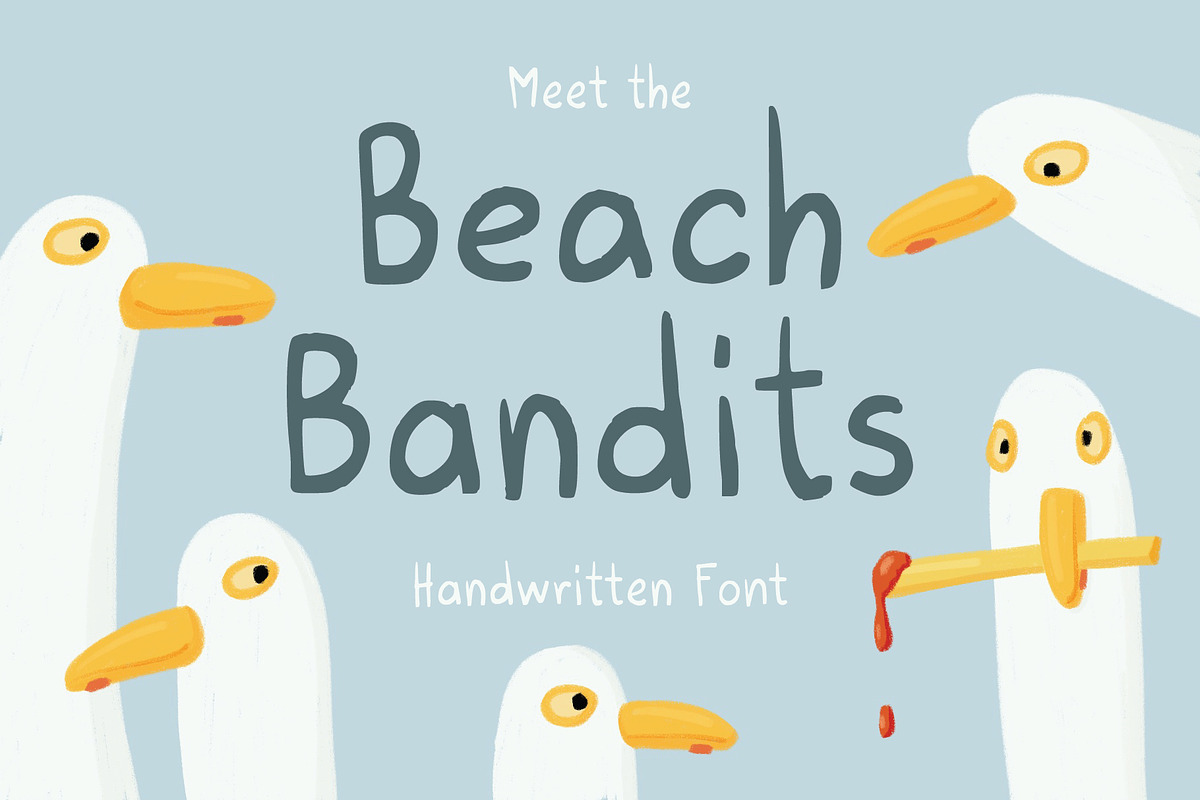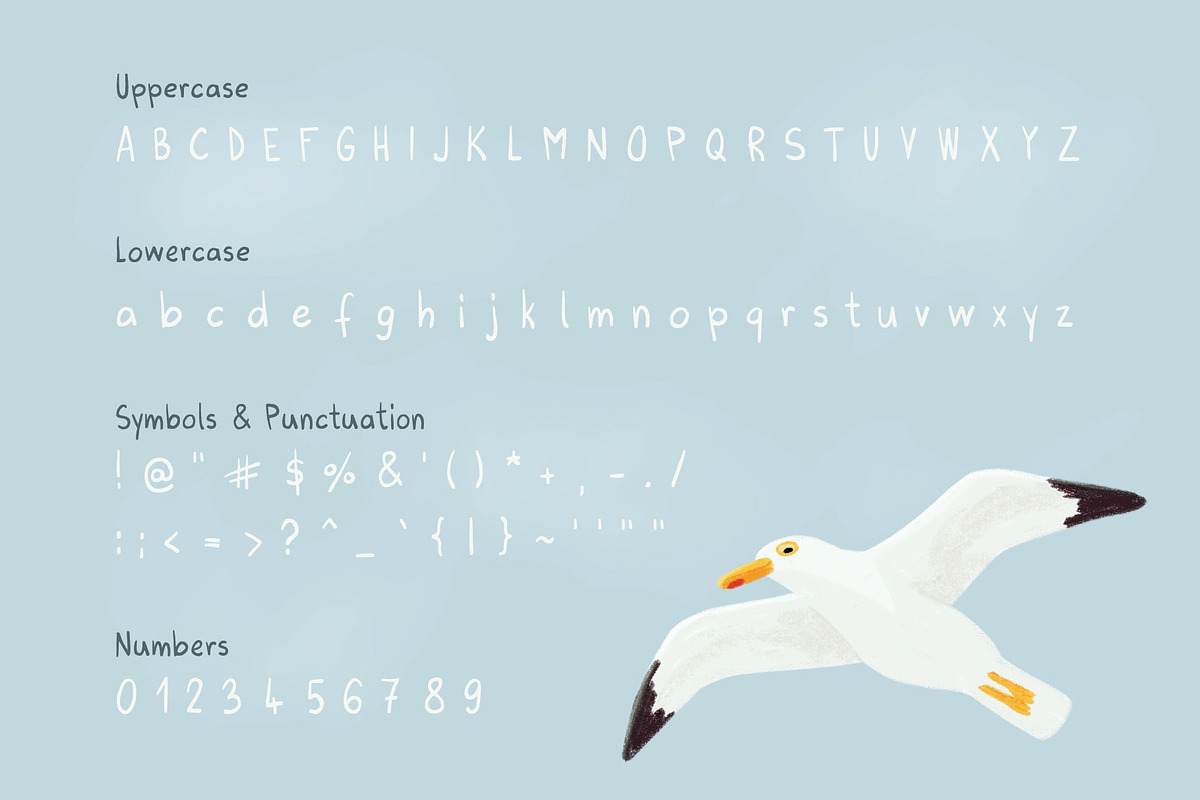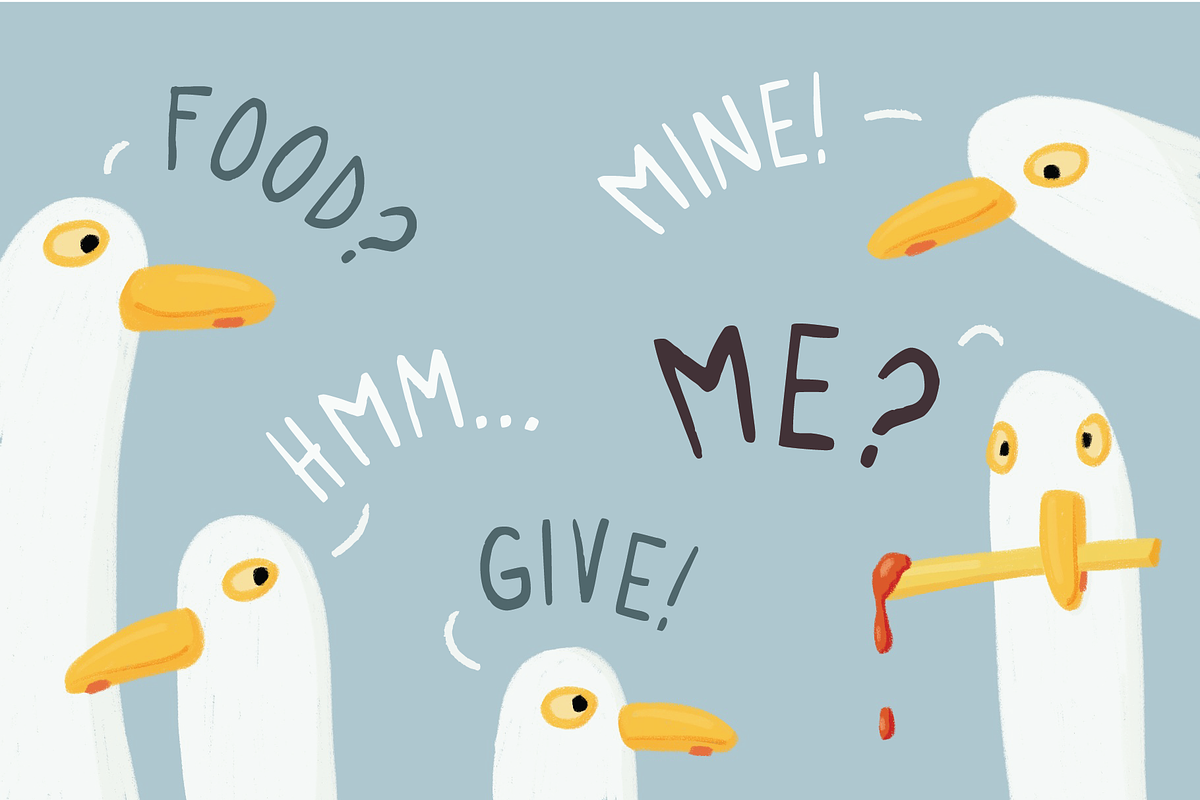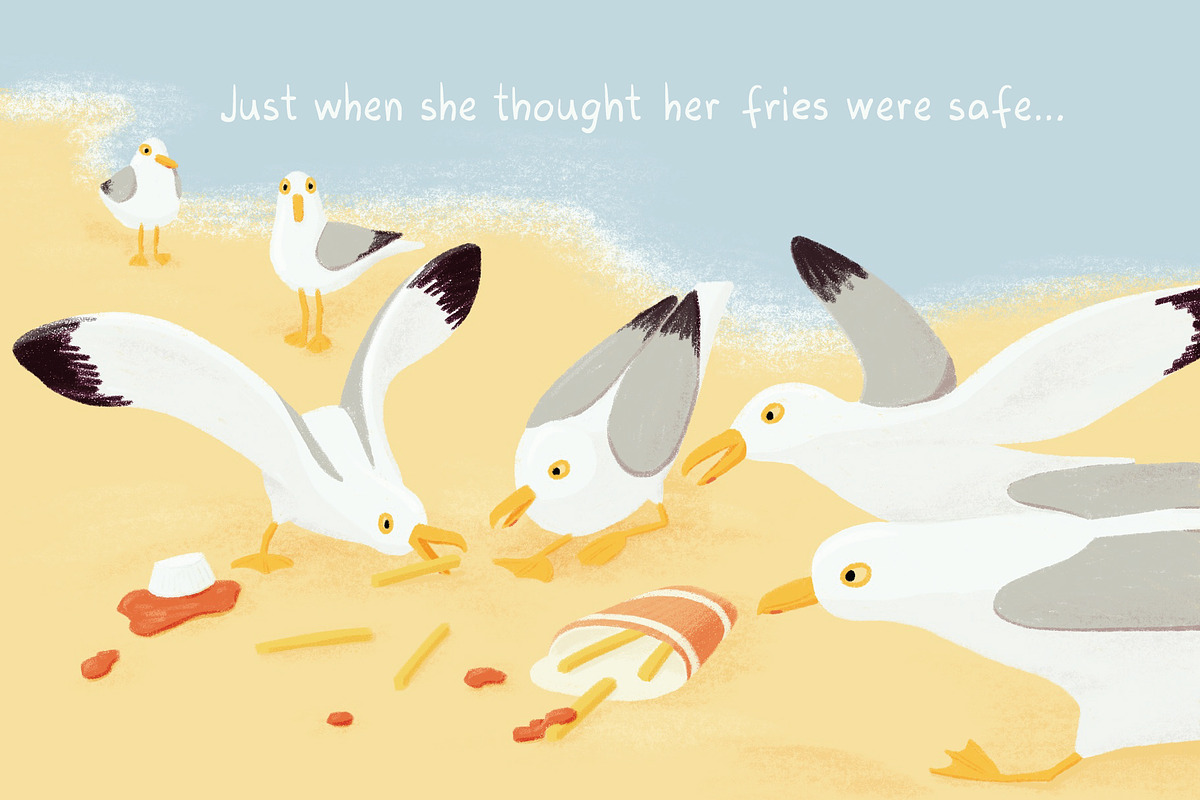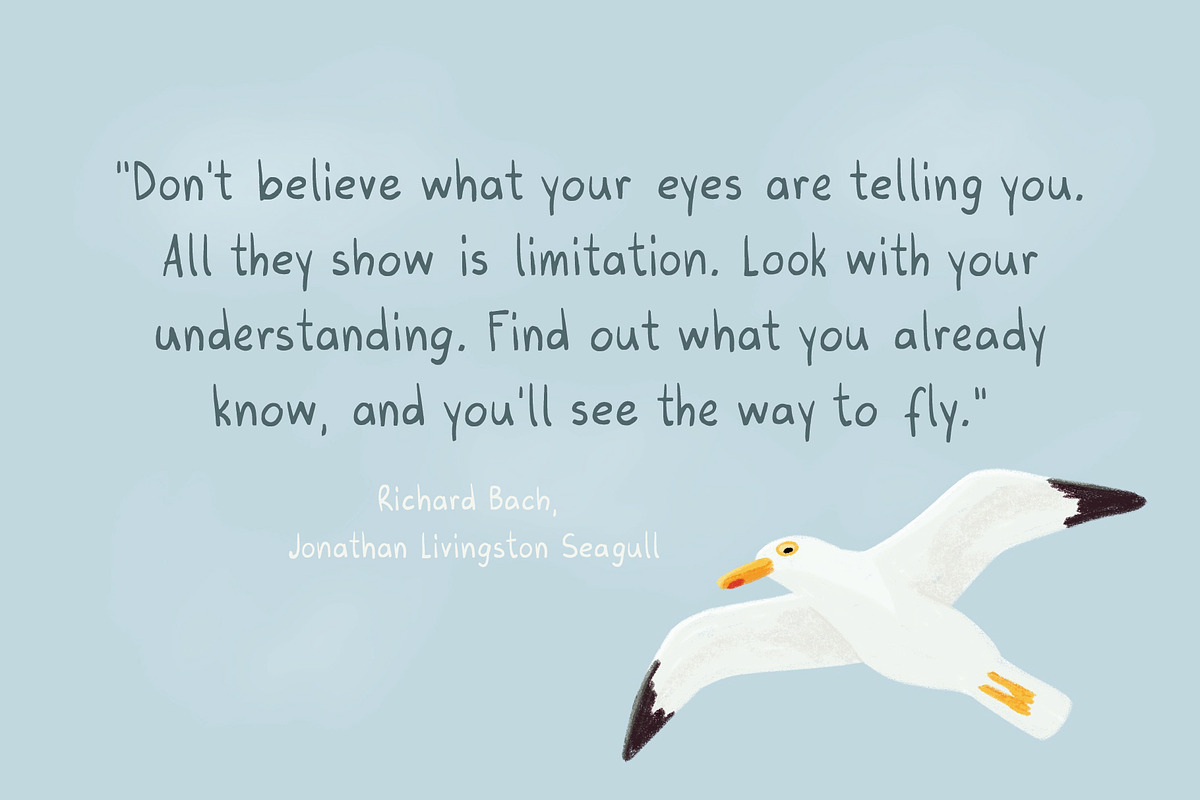
Beach Bandits
Beach Bandits is a playful handwritten, randomised font that captures the carefree spirit of sunny days and sandy toes. With its naturally messy, randomized letterforms, it brings a breezy, hand-drawn charm that feels like scribbles in the sand. Inspired by the cheeky energy of seagulls and seaside adventures, this font is perfect for kids’ projects, beach-themed designs, and anything that needs a splash of fun. Whether you’re creating party invites, storybooks, or playful branding, Beach Bandits adds a lighthearted, whimsical touch to every design.
Let Beach Bandits steal the spotlight and maybe a few fries while it’s at it.